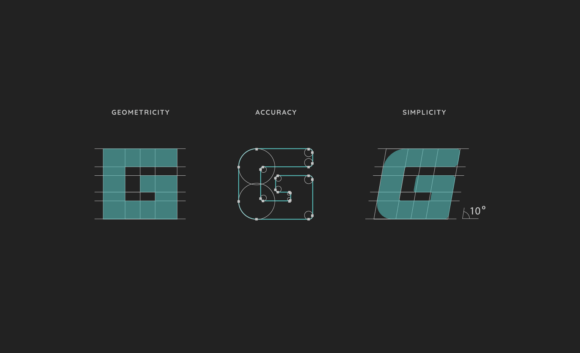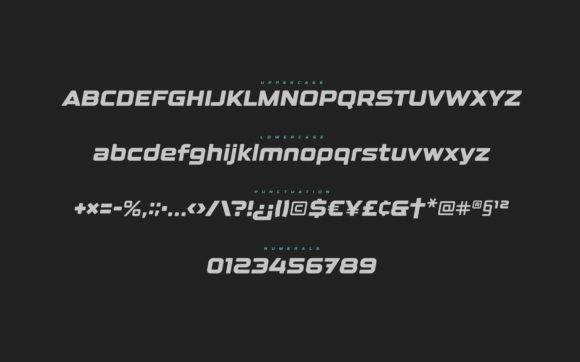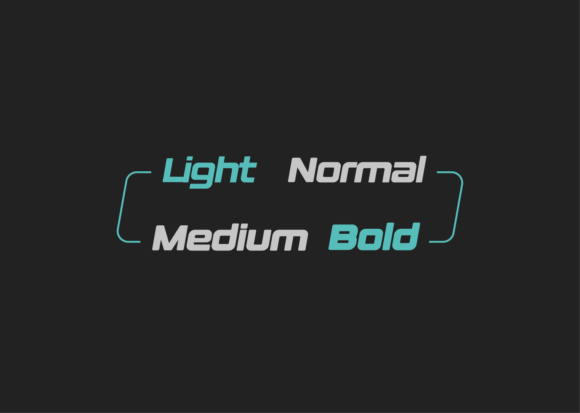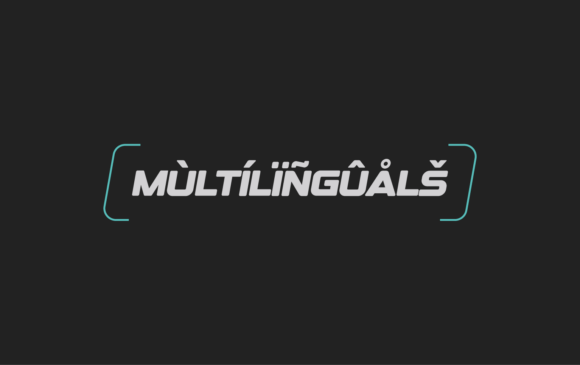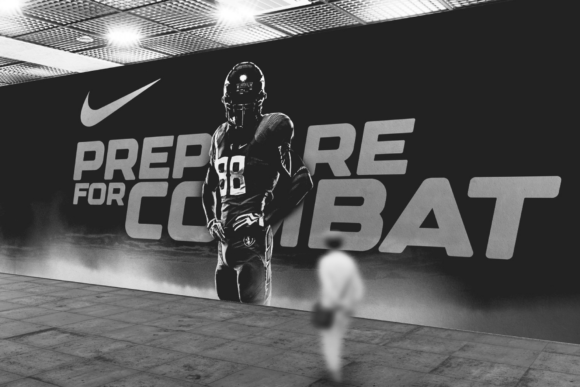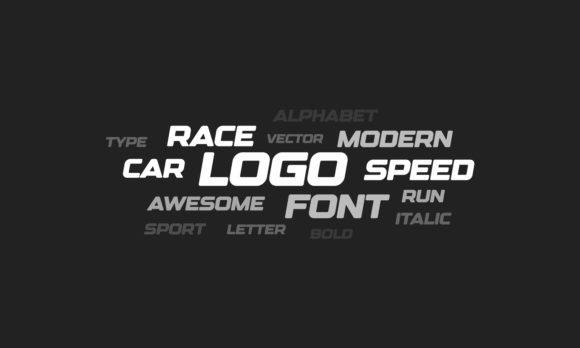
The Perfect Font for the Future: Unleashing the Power of Designer Font
Have you ever been in the middle of a design project, staring at a blank canvas, and suddenly, an idea sparks? The words flow, the colors pop, and the entire concept comes together in a rush of creativity. That’s the magic of design, and it’s exactly what the Designer Font aims to capture.
With its bold personality and dynamic forward slant, the Designer Font is designed to inject energy and movement into your visuals. Whether you’re crafting high-performance branding or striking headlines, this font is the perfect tool to elevate your design game.
For designers, the Designer Font offers a valuable asset: a versatile and modern typeface that can be tailored to suit any creative vision. Its precision geometry and soft-rounded terminals make it an ideal choice for a wide range of projects, from futuristic sci-fi concepts to sleek tech branding.
Designer Font Key Features
- Font Family: Designed with a modern aesthetic, offering a wide range of styles and weights.
- Unique Characteristic: Features a unique set of ligatures, alternates, and swashes that can be accessed through advanced font features in design software.
Designer Font Review
Overall, I’m impressed with “Designer Font”, but as with any font, it has its strengths and weaknesses.
- Highly versatile and suitable for a wide range of applications, from digital interfaces to print materials.
- The font’s clean and modern aesthetic makes it perfect for minimalist designs.
- Excellent legibility, making it easy to read even at small font sizes.
- The font’s comprehensive character set supports multiple languages.
- Some users may find the font too plain or lacking in personality.
- The font’s thin strokes may not be suitable for use in certain contexts, such as in low-resolution environments or with low-contrast backgrounds.
- The font’s open-source nature means that it may not be supported as widely as commercial fonts.
“Designer Font” is a solid choice for designers looking for a clean and modern font. While it may not be the most exciting or distinctive font, its versatility and excellent legibility make it a reliable option for a wide range of projects. With some careful consideration of its limitations, I would recommend “Designer Font” to designers who value simplicity and practicality.
Designer Font is ideal for:
1. Creating visually appealing logos and branding materials.
2. Adding a touch of sophistication to presentations and documents.
3. Designing eye-catching social media graphics and advertisements.